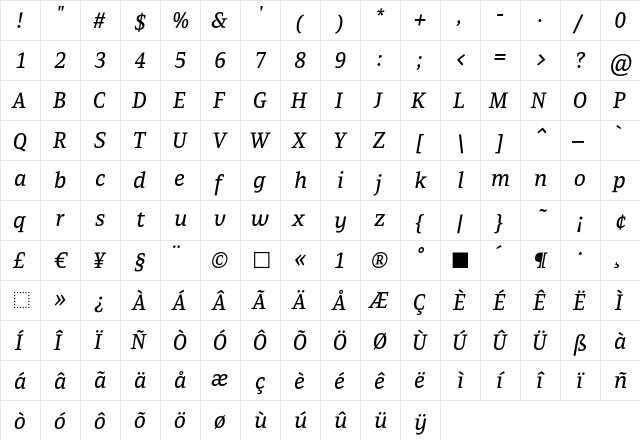
GakSerif RegularItalic
Design Context for GakSerif Typeface
GakSerif brings classic typographic sensibility to the table — its serifs and measured letterforms reflect centuries of print heritage. Its italic angle brings a sense of urgency and motion to the letterforms.
Pro Tip: Set GakSerif with slightly loose tracking in headlines to let each letterform's detail read clearly at display sizes.